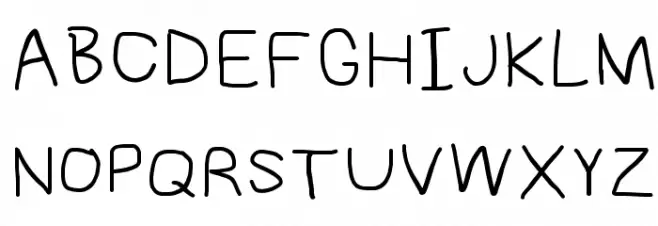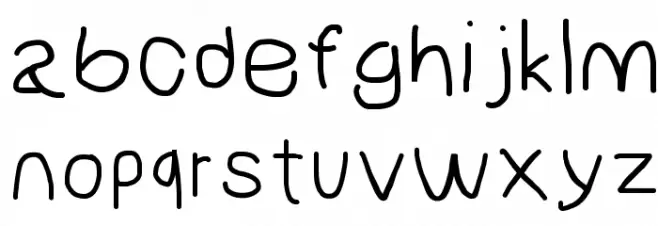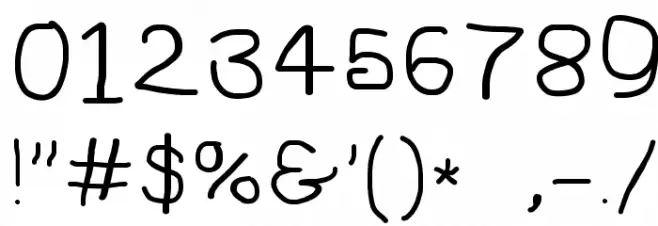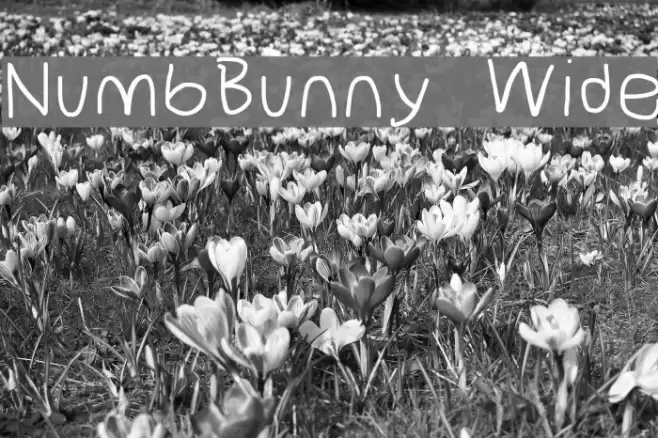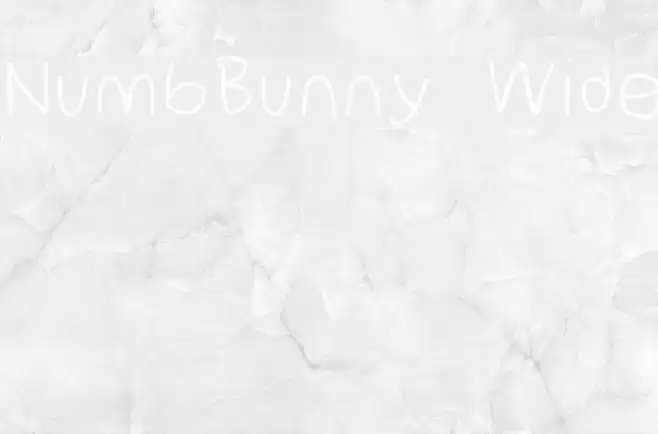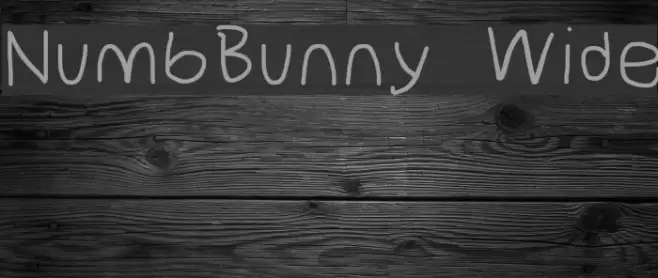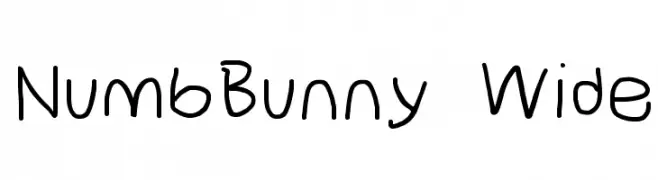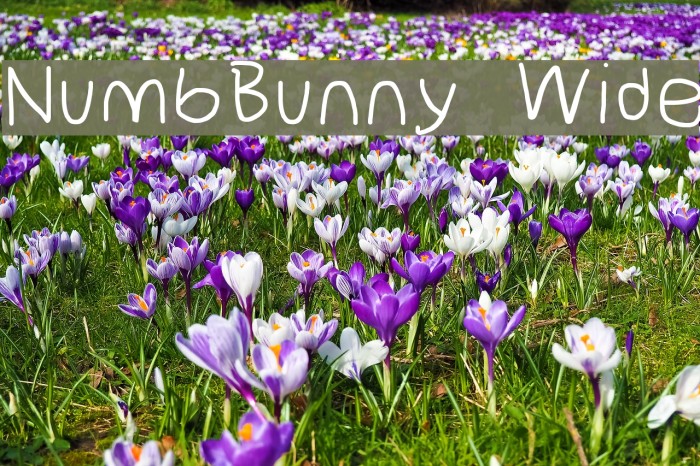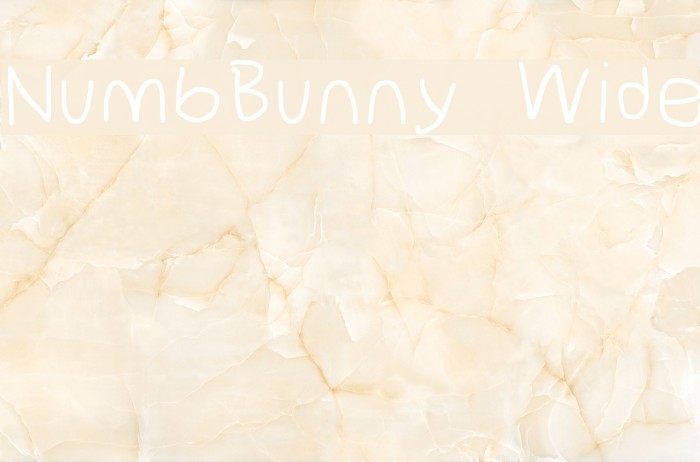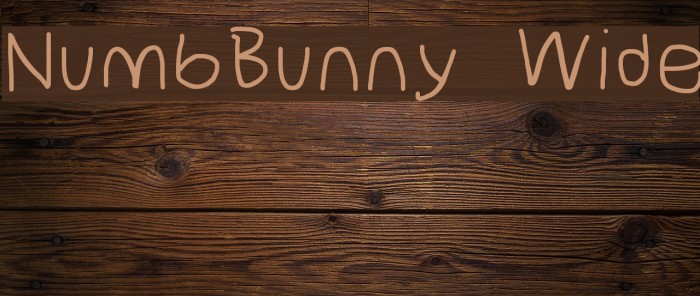
NumbBunny Wide
This font features a playful and whimsical handwritten style, characterized by its rounded and slightly irregular letterforms. The uppercase and lowercase letters maintain a consistent width, giving it a cohesive appearance. The strokes are smooth and have a casual feel, making it approachable and friendly. The numerals are clear and easy to read, with a similar playful touch. Special characters are well-integrated, maintaining the overall style. This font is ideal for projects that require a personal and informal touch, such as children's books, greeting cards, or creative branding.
A playful, handwritten font with rounded, irregular letterforms.
- Proposed Projects: Children's books, greeting cards, creative branding, informal invitations.
- Overall Style: Playful, Casual
- Use Case: Headlines, Informal text, Creative projects